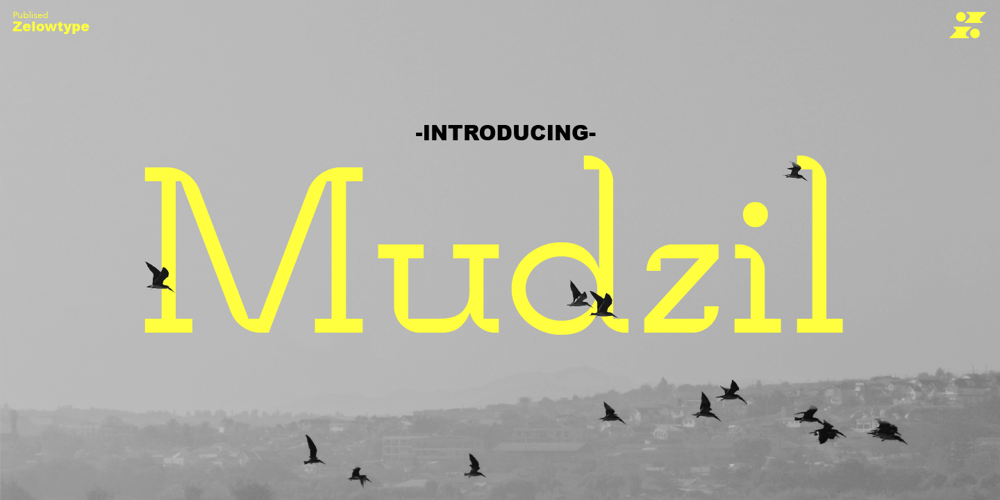
Mudzil
Mudzil font
Mudzil Font Family was designed by Khair Unnas and published by Khaiuns. Mudzil contains 12 styles and family package options. Maybe you’re tired of slab fonts that are too monotonous or too rigid!Introduce Mudzil, a type family with a more dynamic and brutal style, perfect for magazines, posters, books, logos, etc. Your design doesn’t look boring.If you want to make your design more different, Mudzil is also accompanied by several alternative letters, because a little different is better than a little better.If there is a problem or update request, you can contact me at email selowtype@gmail.comI hope you have a blast using Mudzil.Thanks for use this font ~ Khaiuns X zelowtype